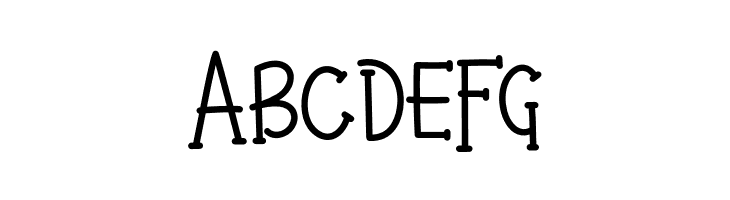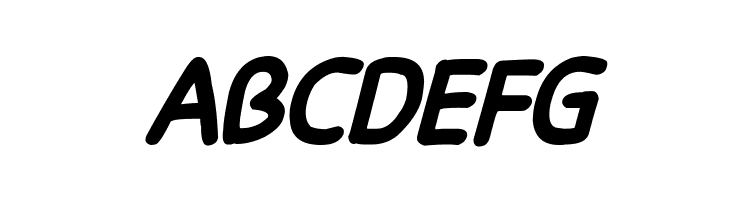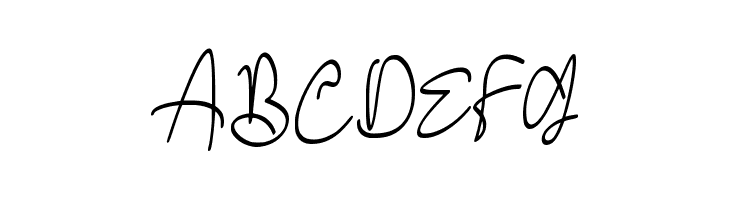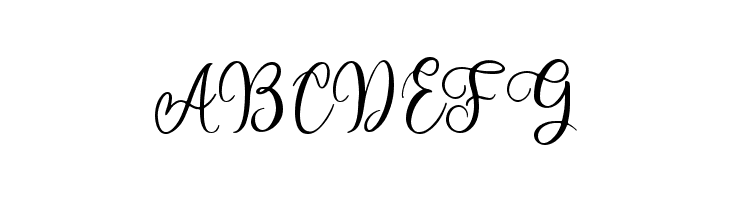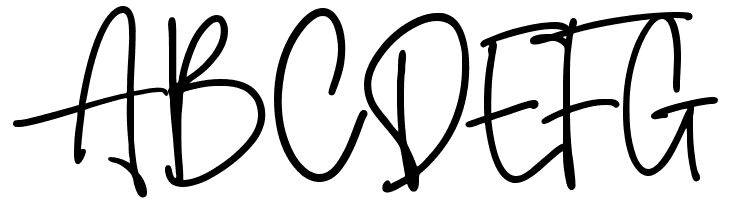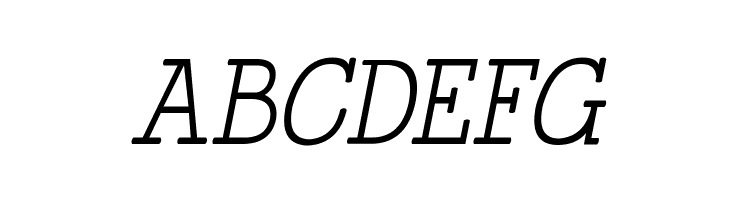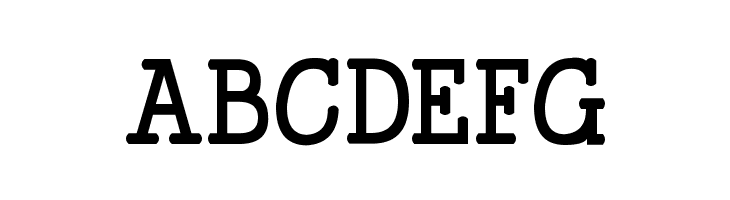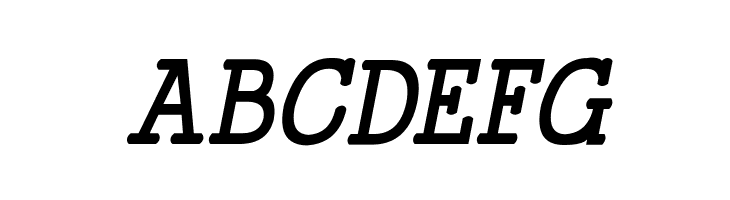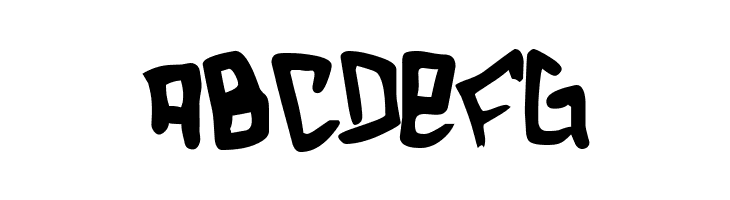
A playful, handwritten italic font with bold, rounded strokes.
A playful, hand-drawn font with a whimsical and informal style.
A modern serif font with clean lines and balanced proportions.
A bold, classic typewriter-style font with modern, clean lines.
A bold and italic serif font with a dynamic and elegant appearance.
An elegant italic font with smooth curves and a modern twist.
A bold, graffiti-inspired font with sharp, angular lines and an energetic style.
A graceful script font with flowing, ornate characters.
A dynamic handwritten font with fluid, interconnected strokes.
A fluid, cursive handwritten font with a natural signature style.